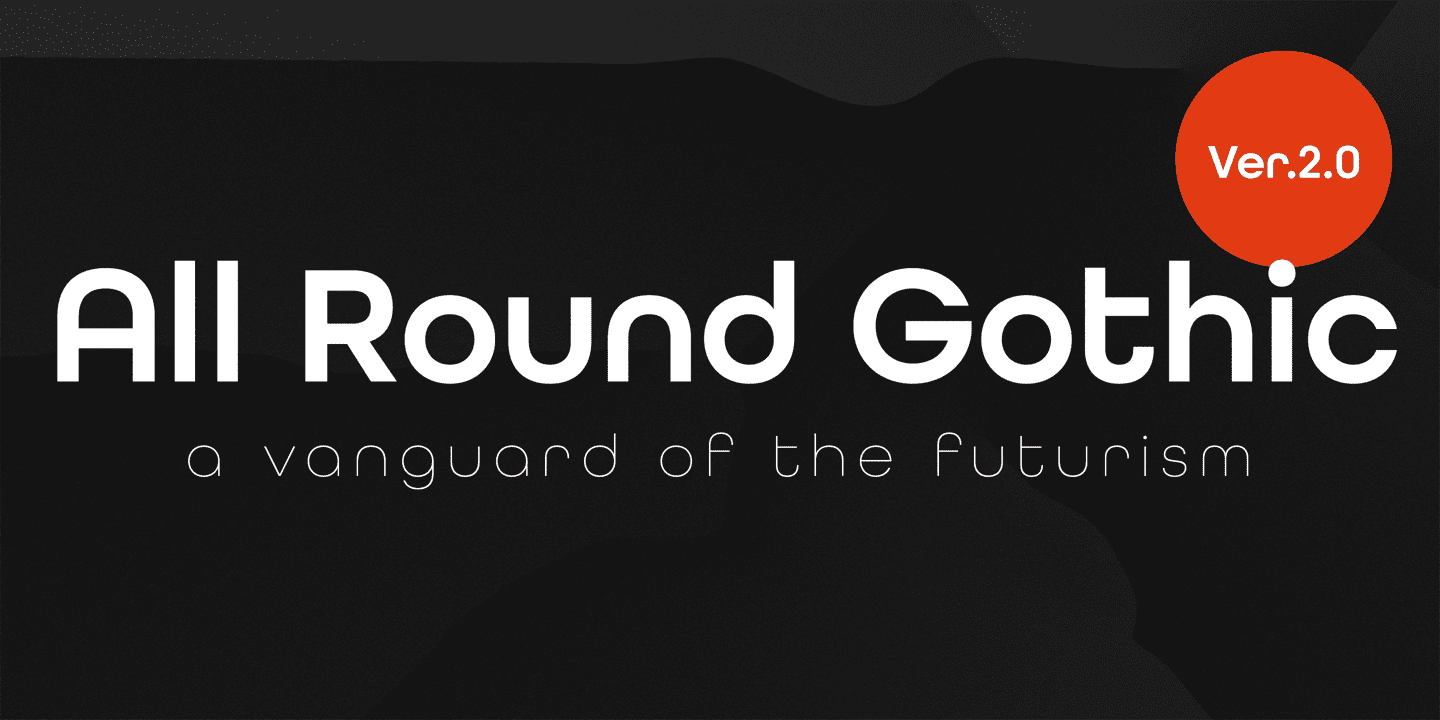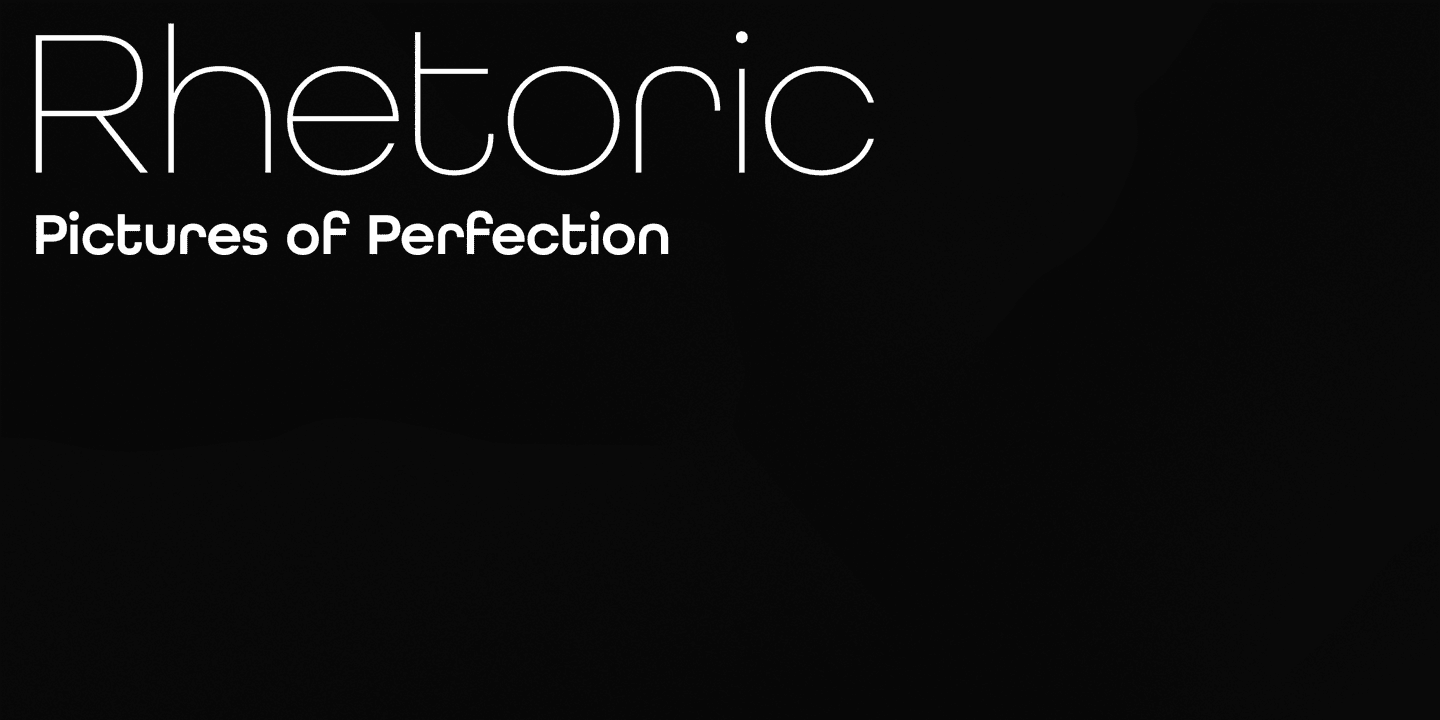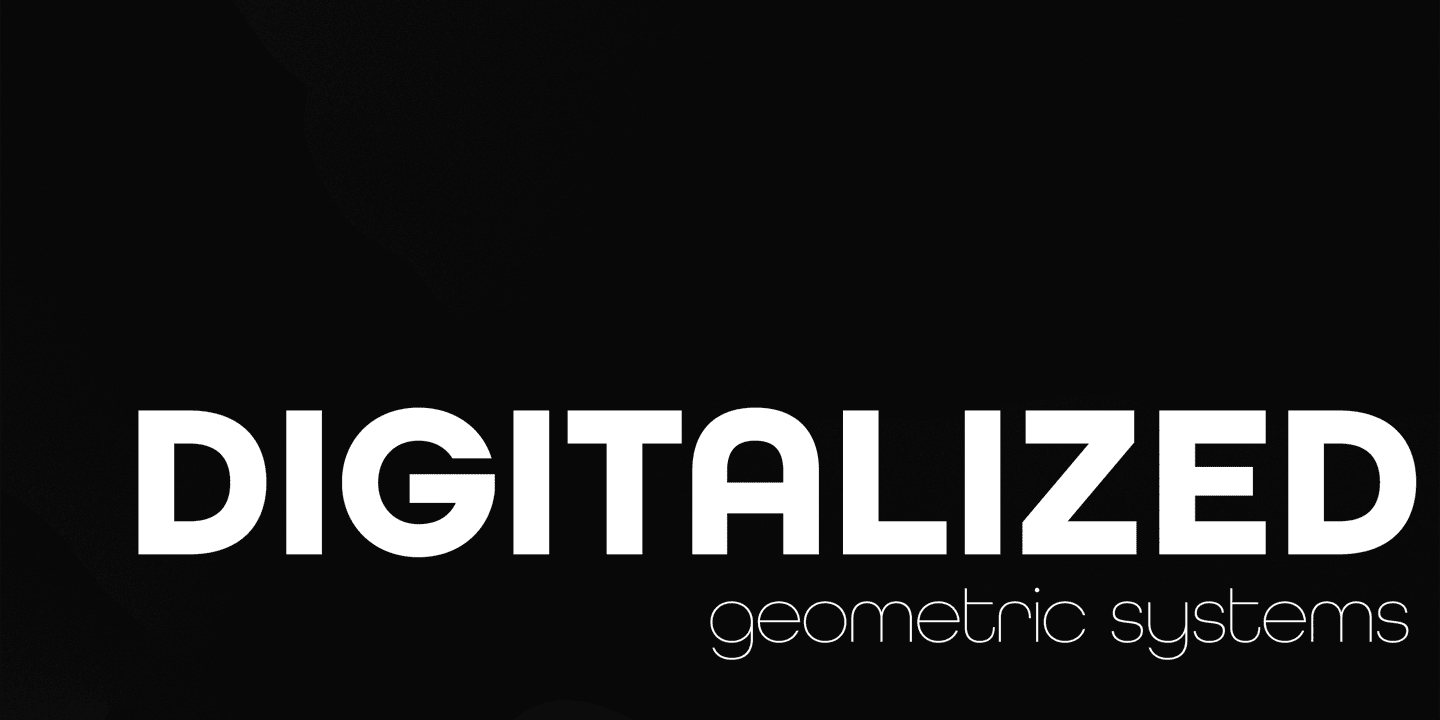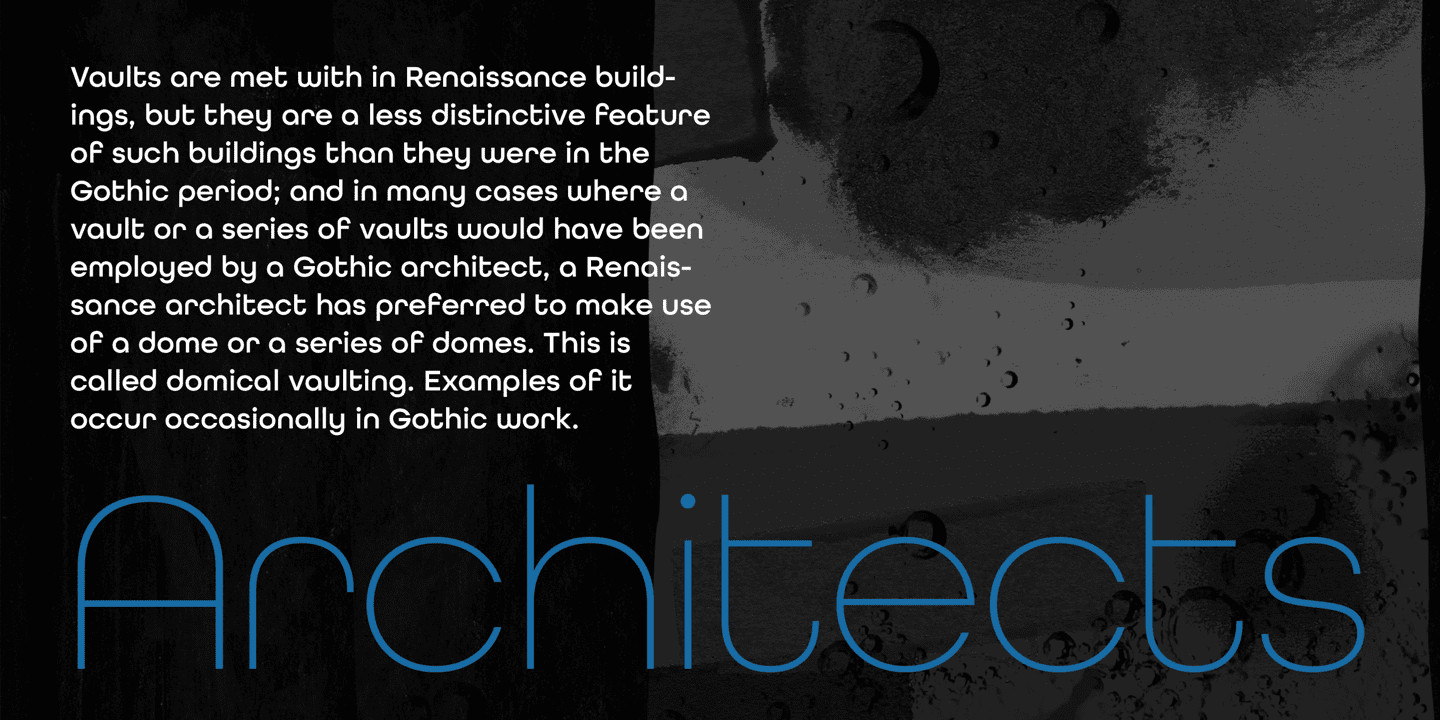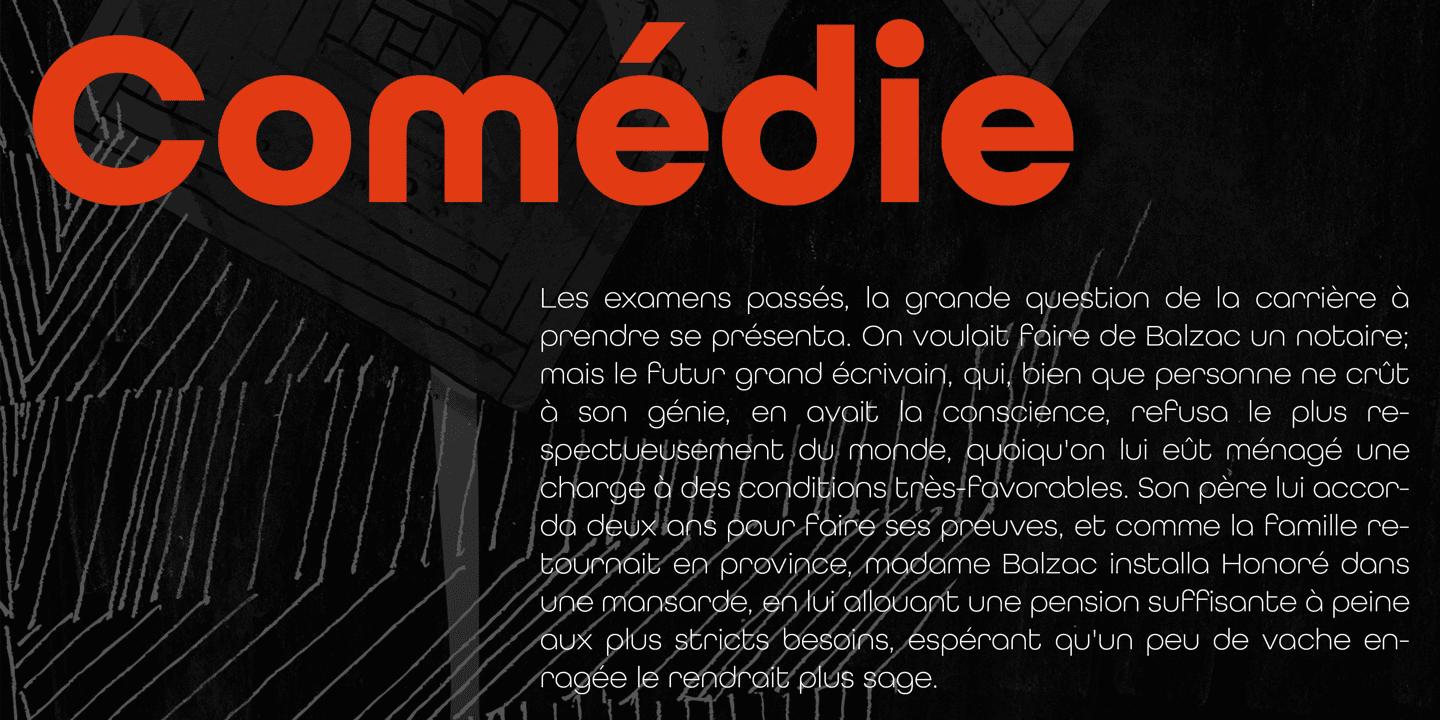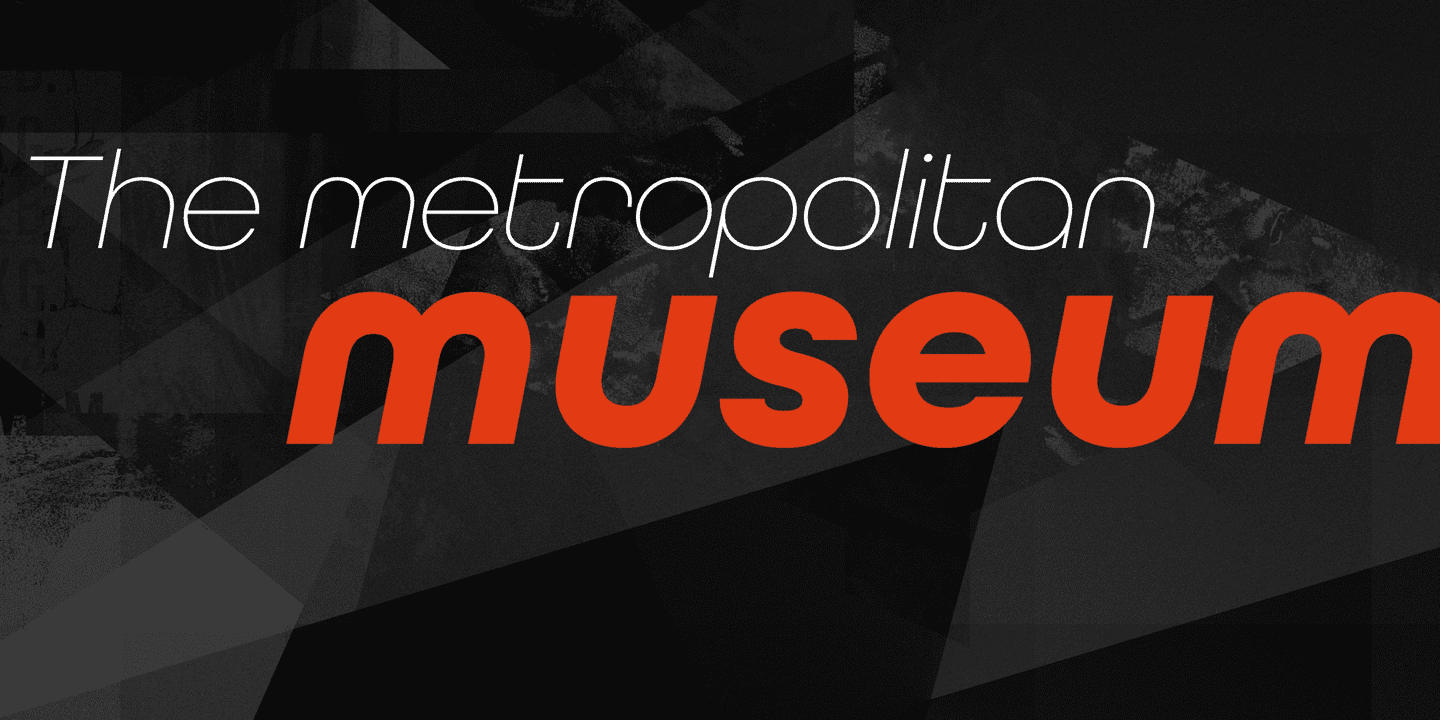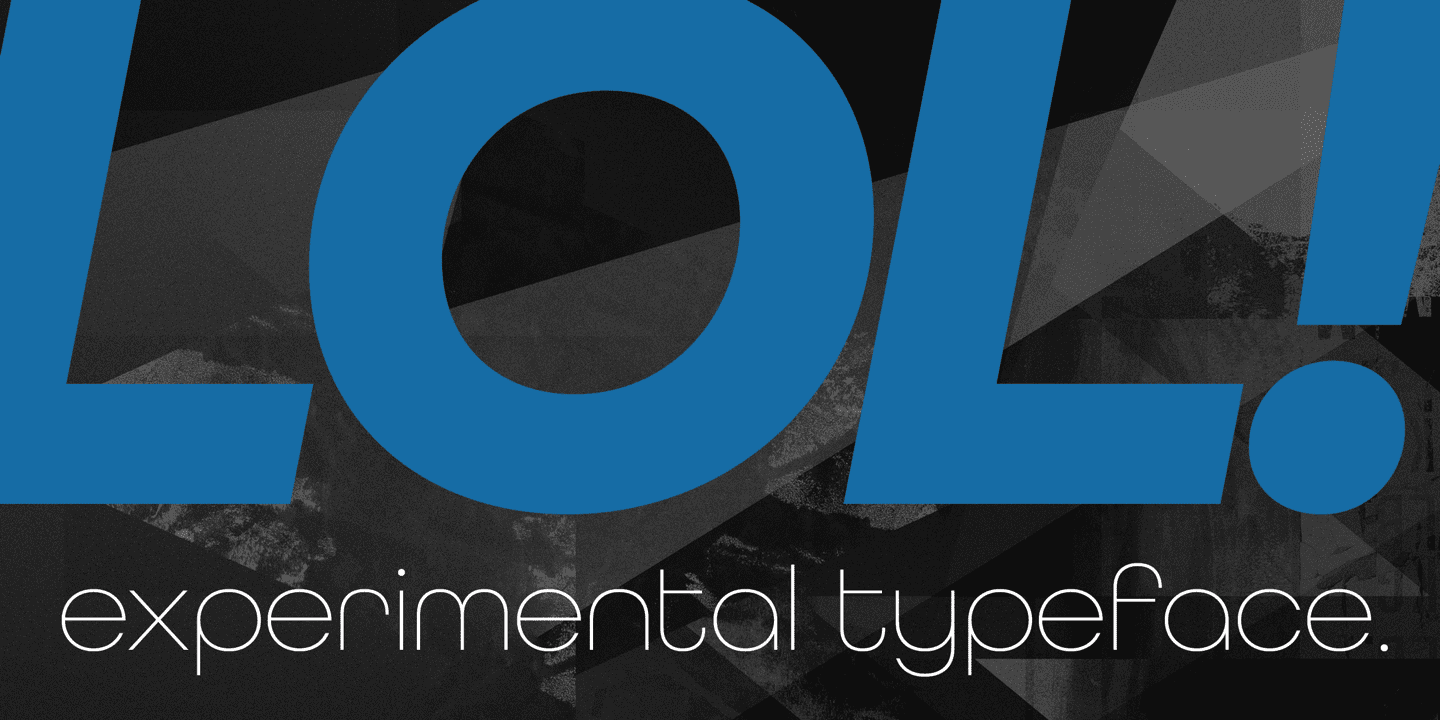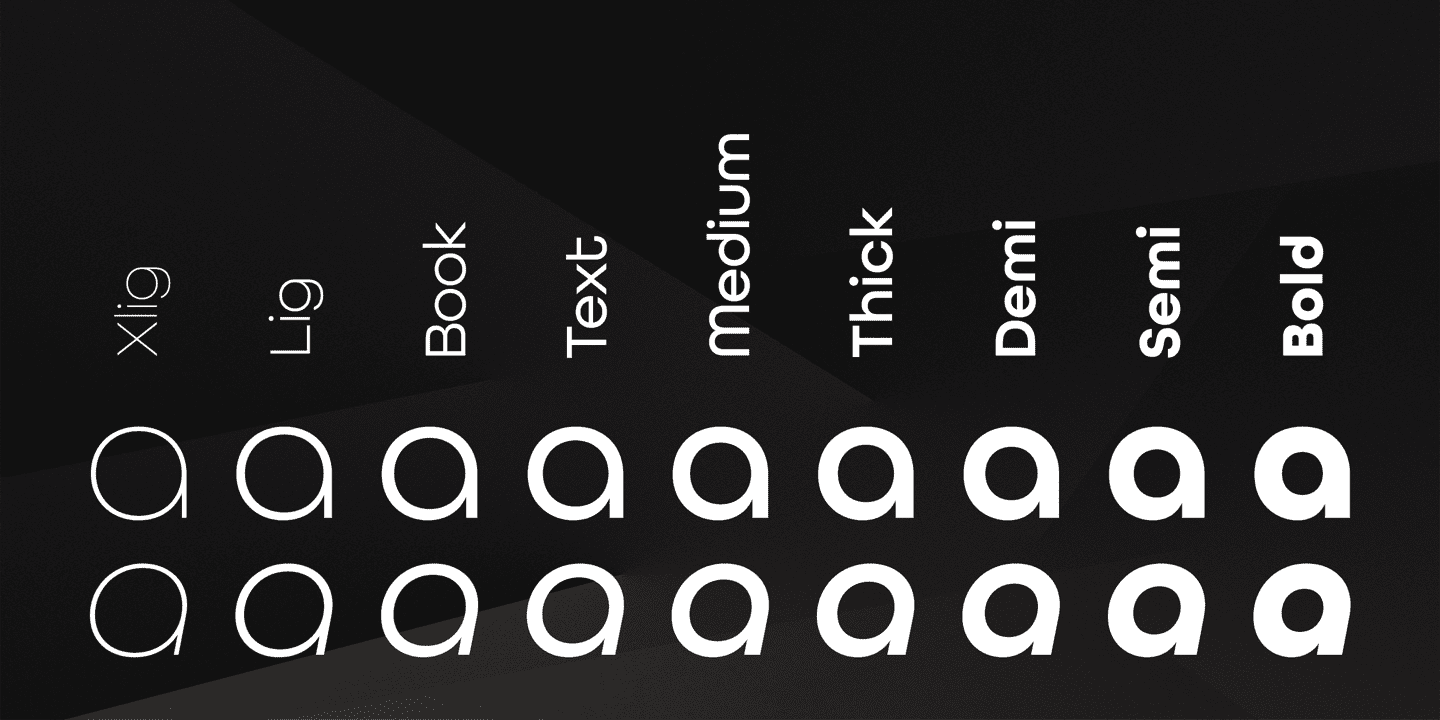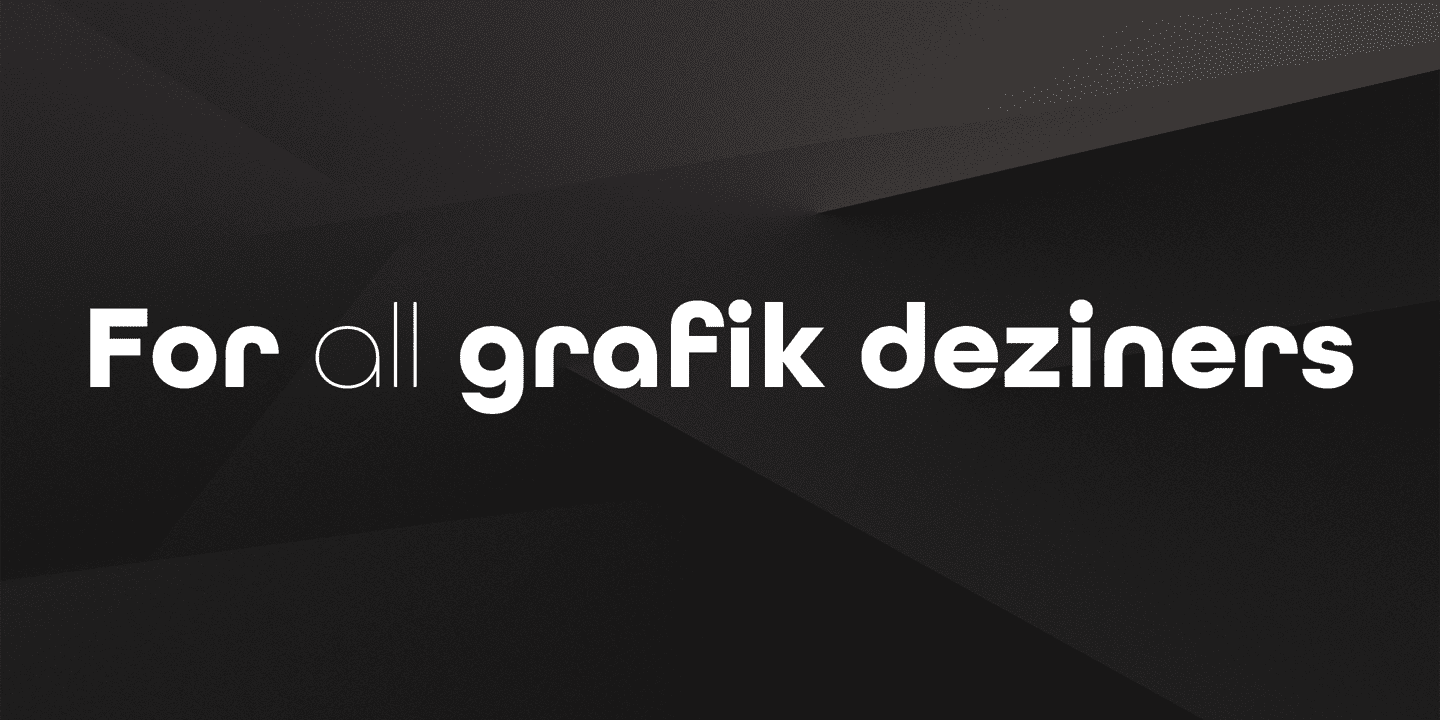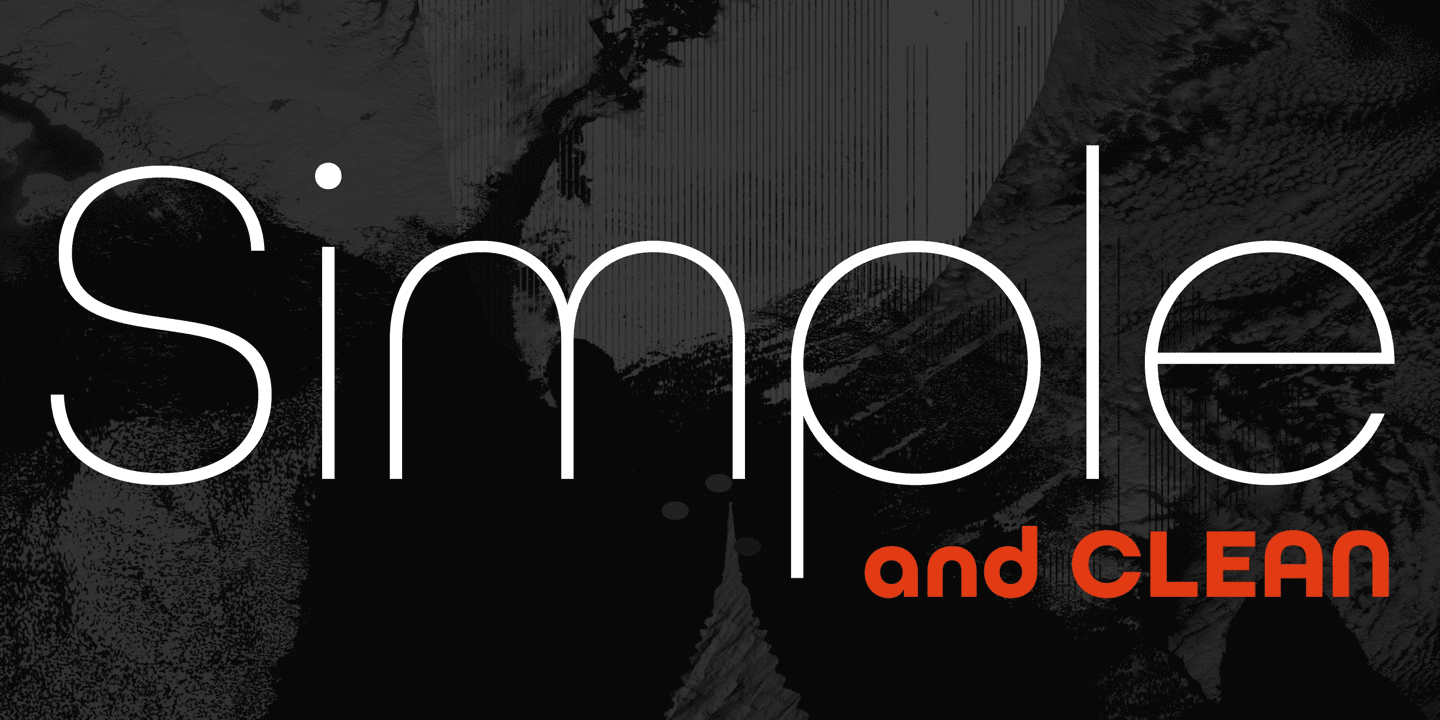
All Round Gothic Family (18 fonts)
All Round Gothic is a structured geometric sans, but also creates a sweet and cute atmosphere by removing unnecessary stems. With their bowls shaped by not-perfectly-geometric circles, All Round Gothic makes an organic impression in some degree.
As a result, All Round Gothic became a new font family that covers between 1920s Bauhaus and contemporary design trends comprehensively and one of the most suitable family for any purpose such as text, headline, logo, poster, and animations thanks to clean and legible but soft and friendly letterforms.
All Round Gothic includes 9 weights and obliques corresponding to each weight. Why don't you try this family if you got a little bored with classic sans serifs. This font is used in the Minions movie.